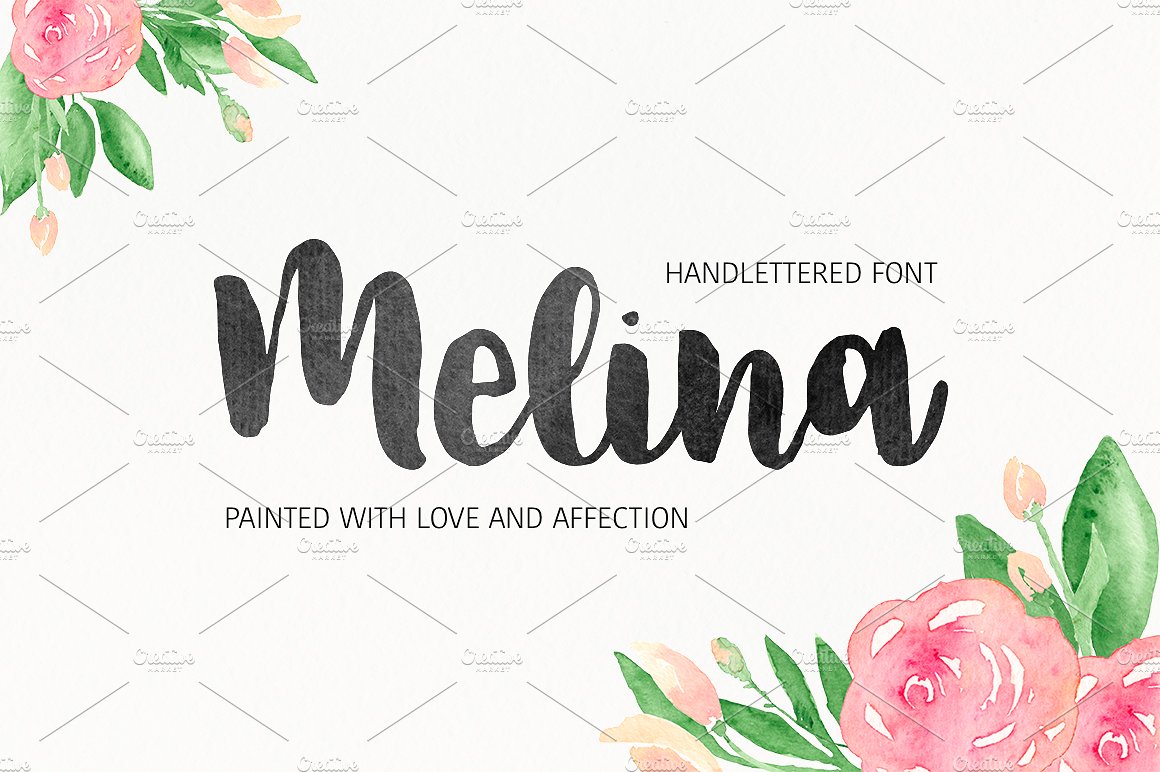
Melina Script Font
Melina – a new fresh handmade calligraphy font. Very suitable for greeting cards, branding materials, business cards, quotes, posters, and more!
| Designer Name: | MediaLab.Co |
| Classification: | Brush Fonts, Script Fonts |